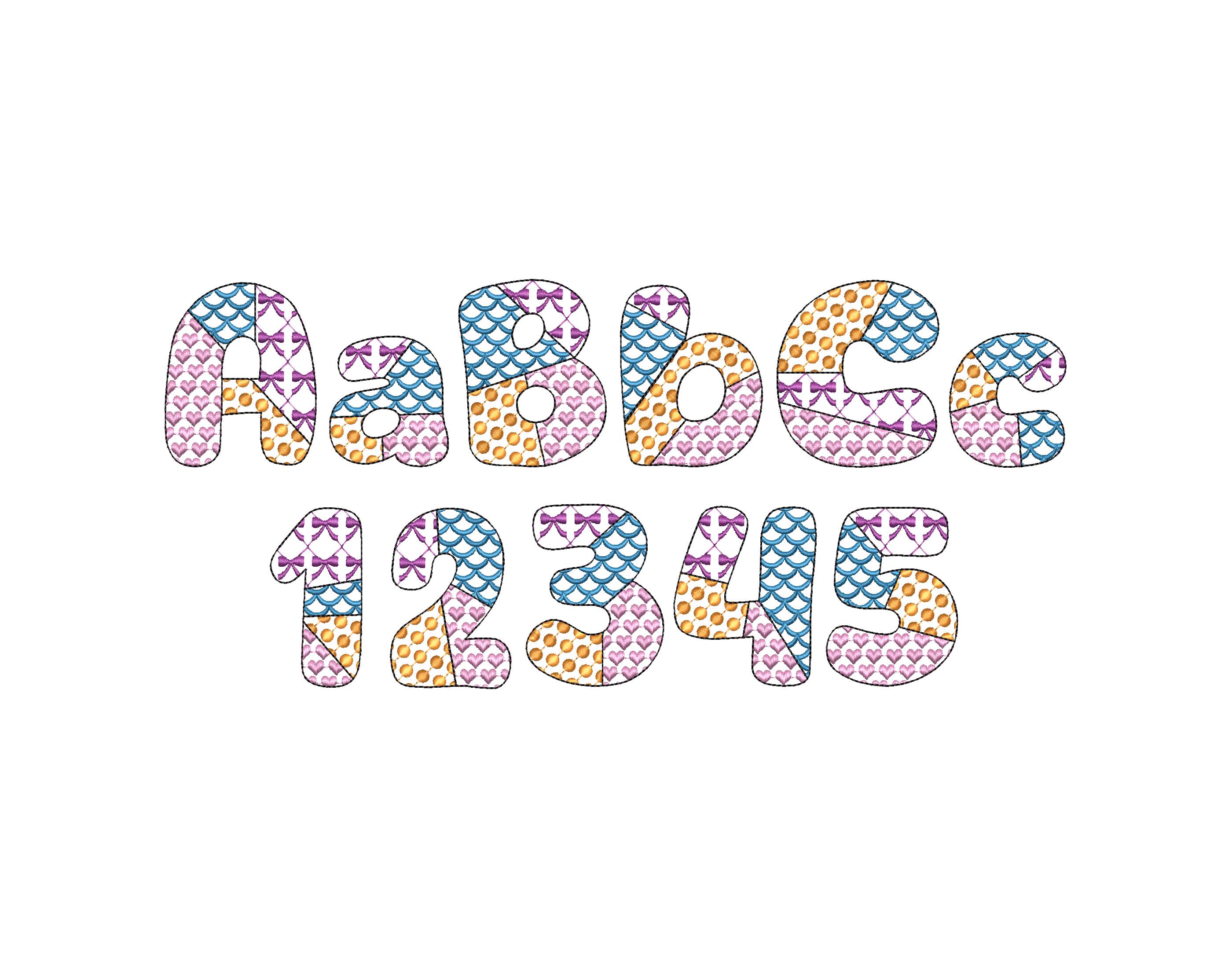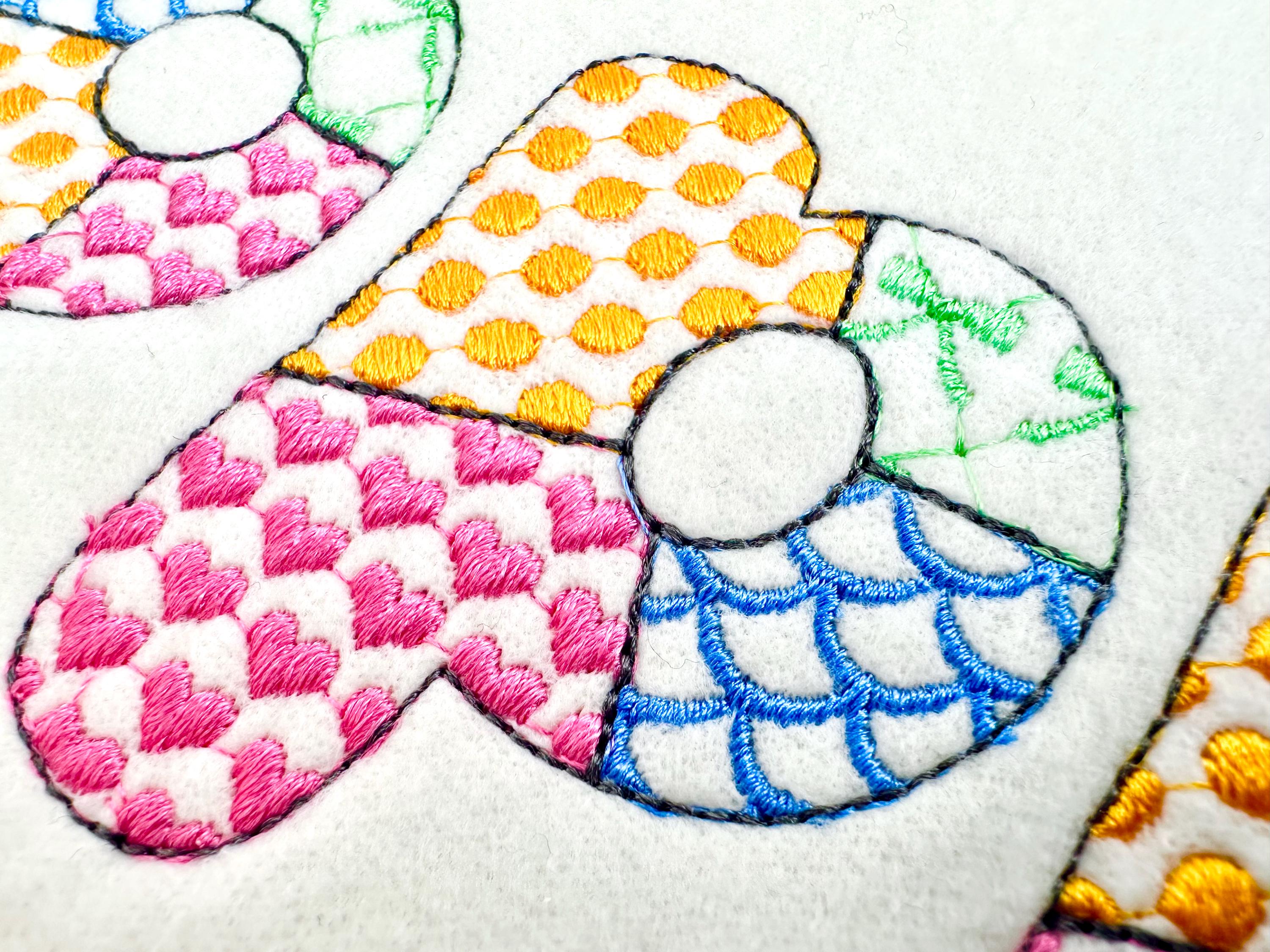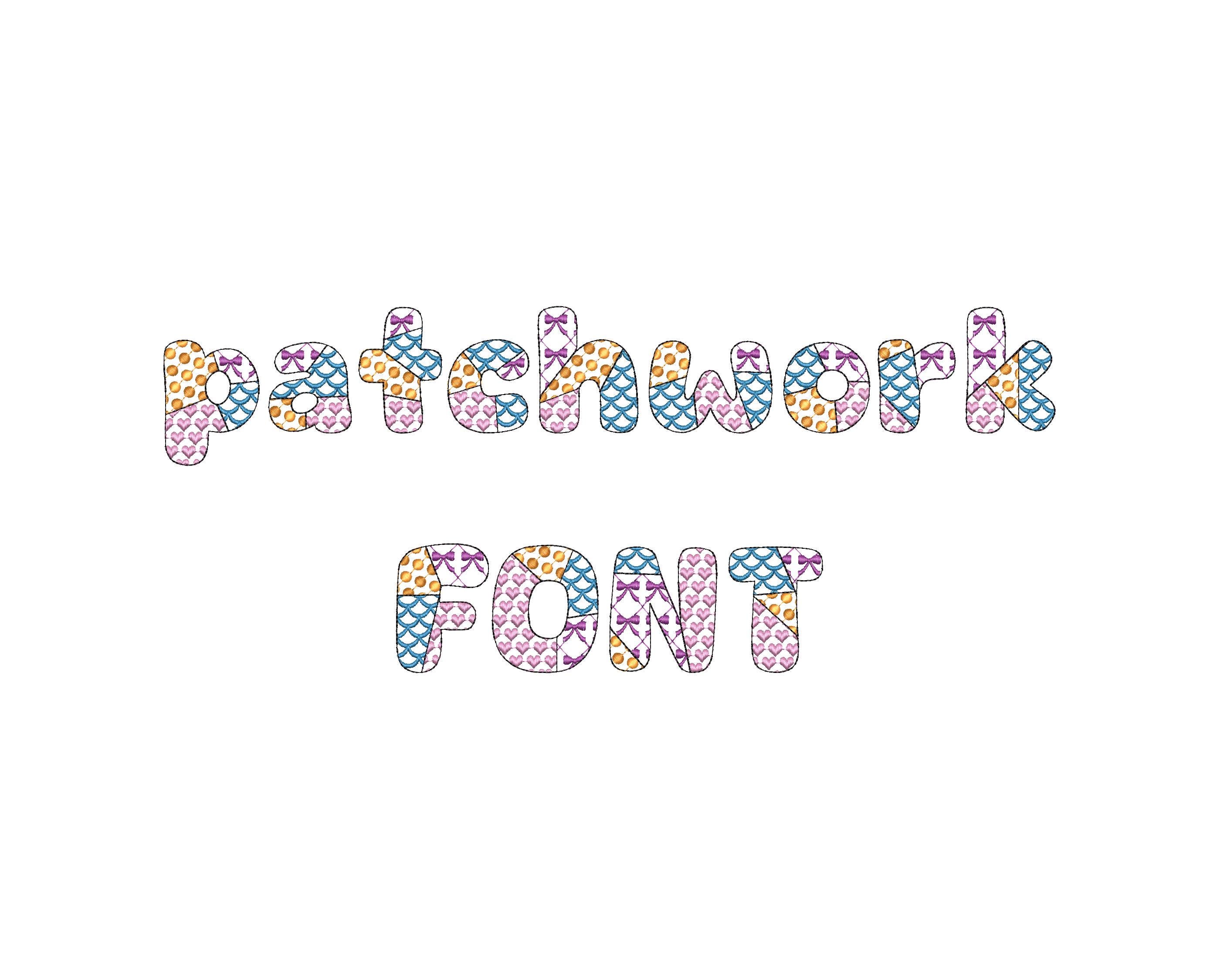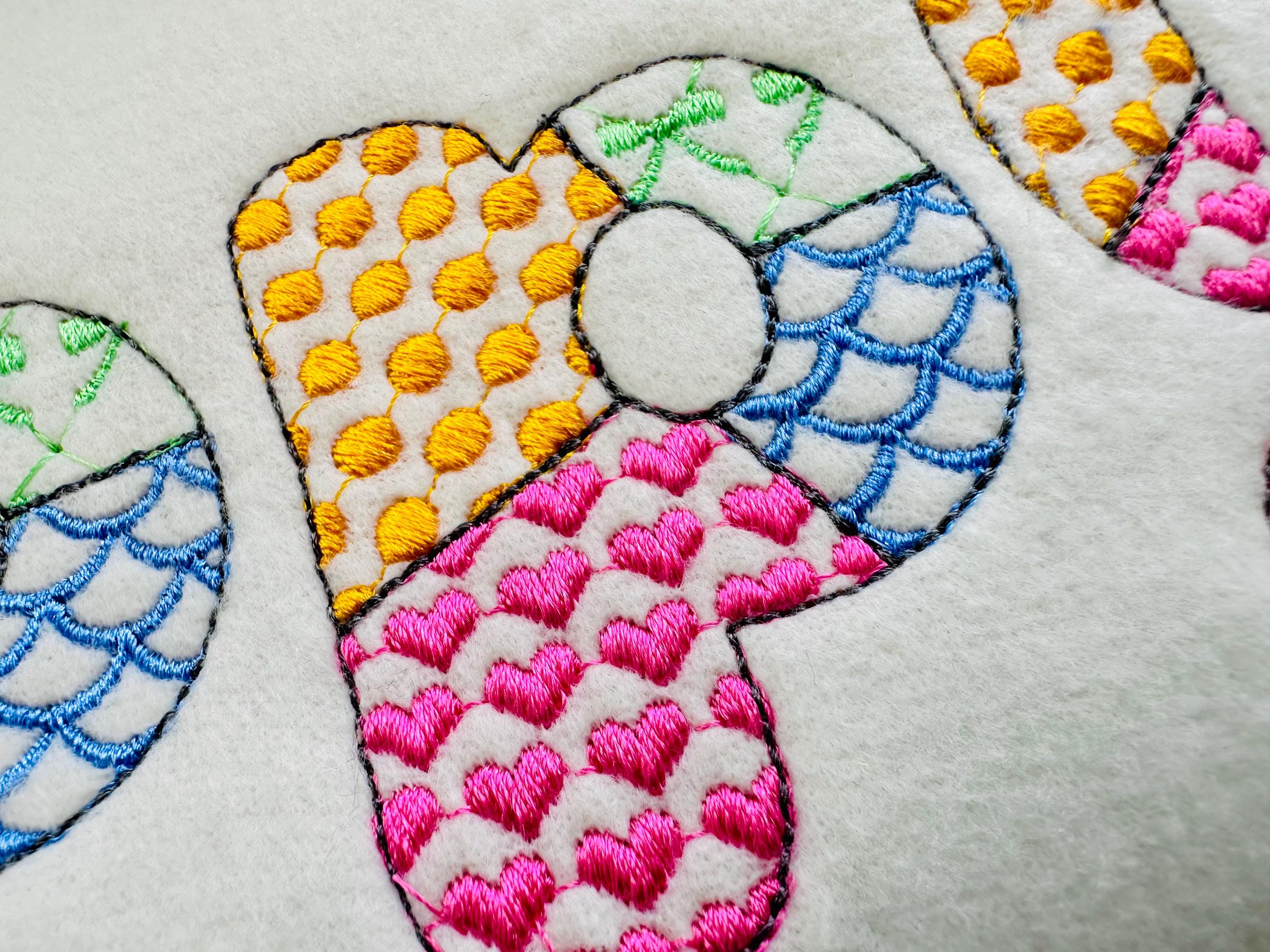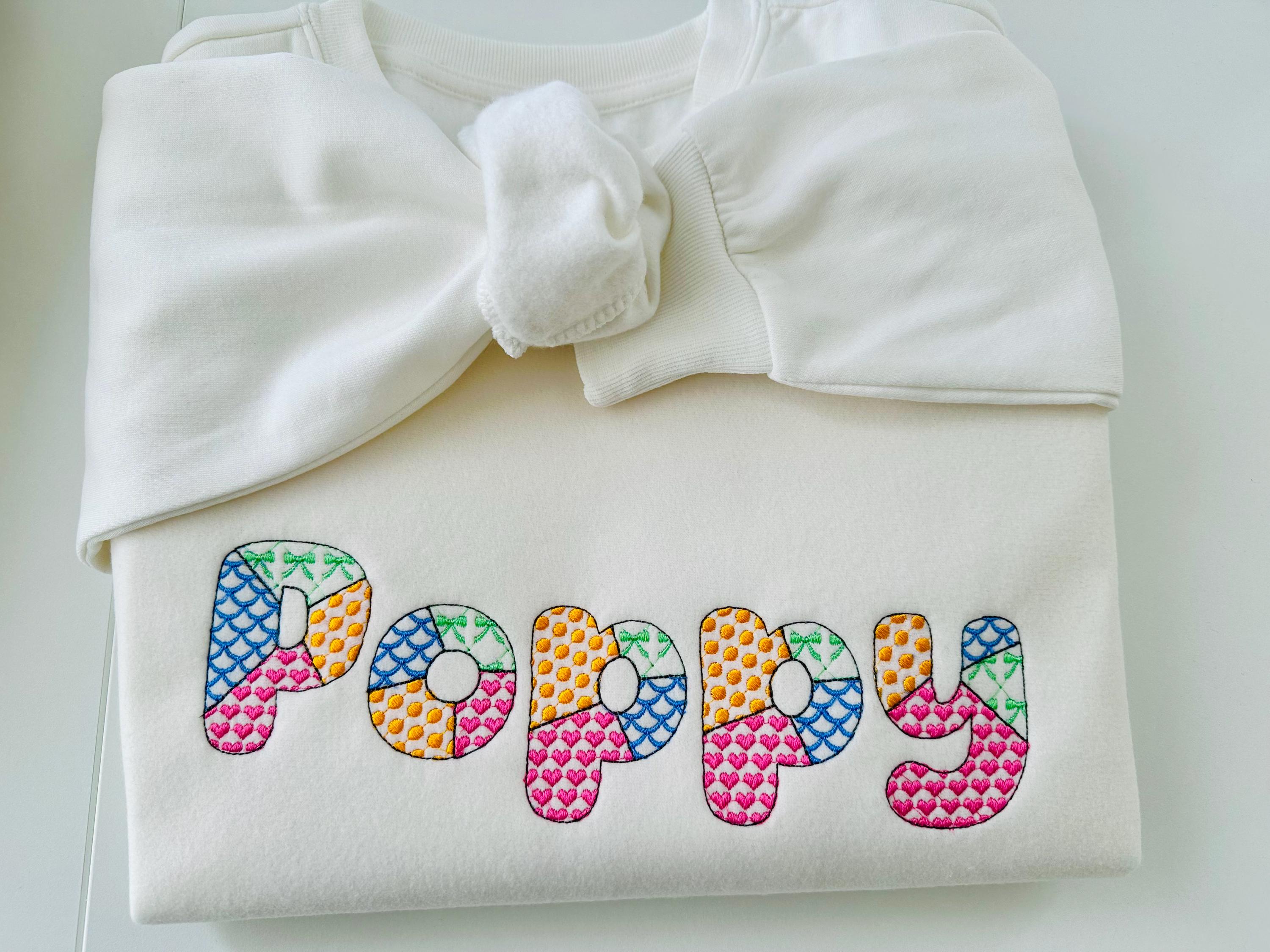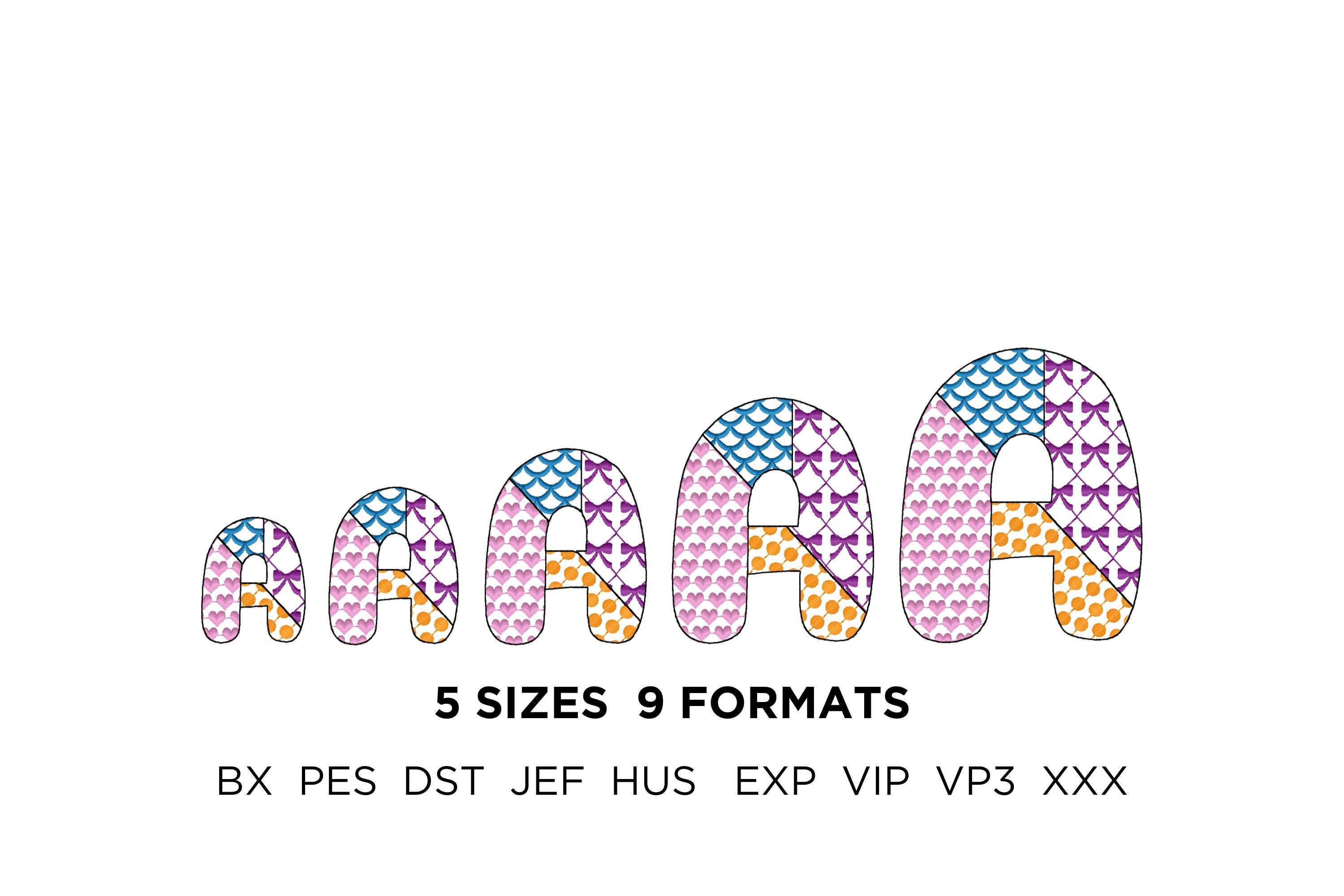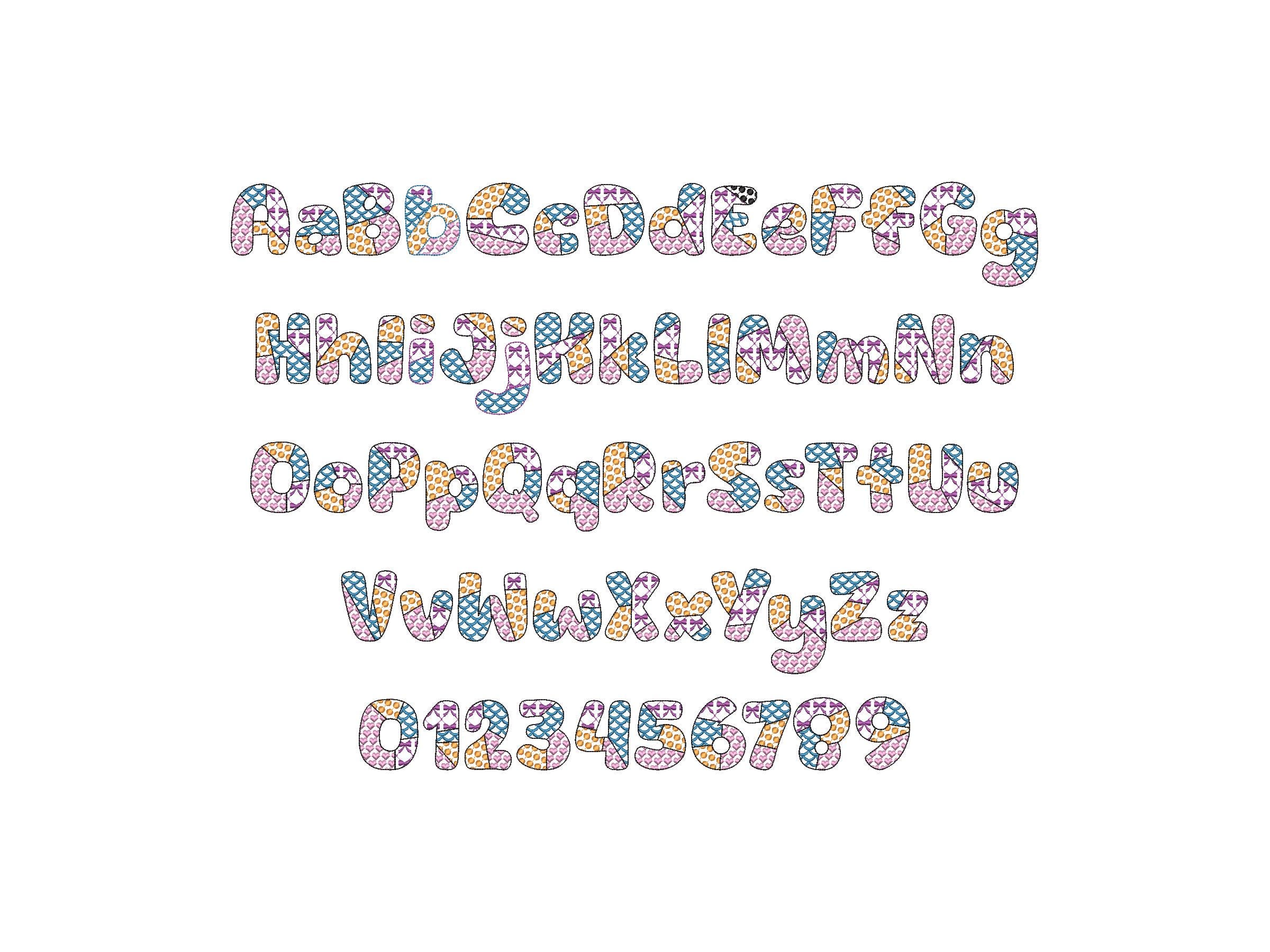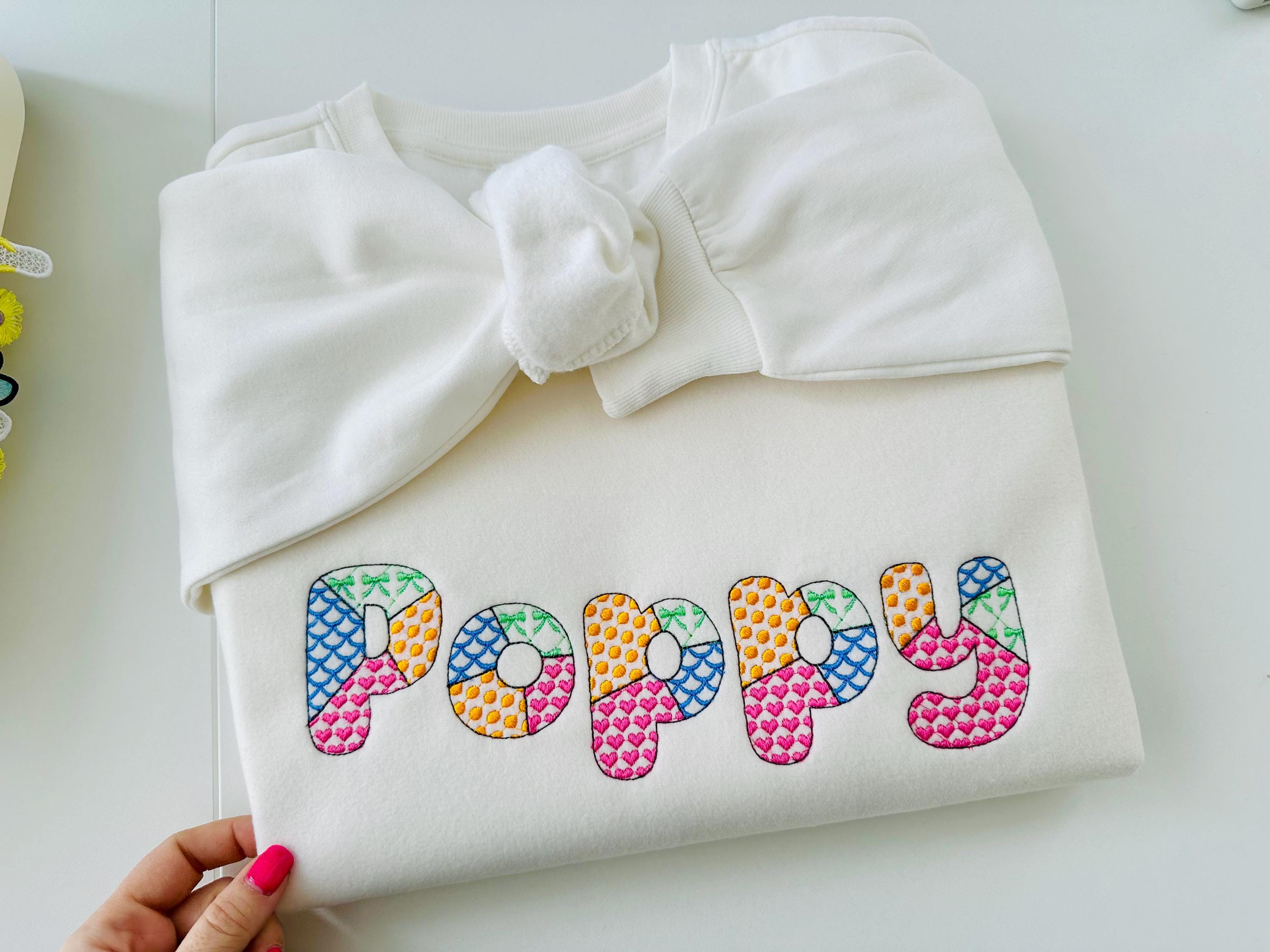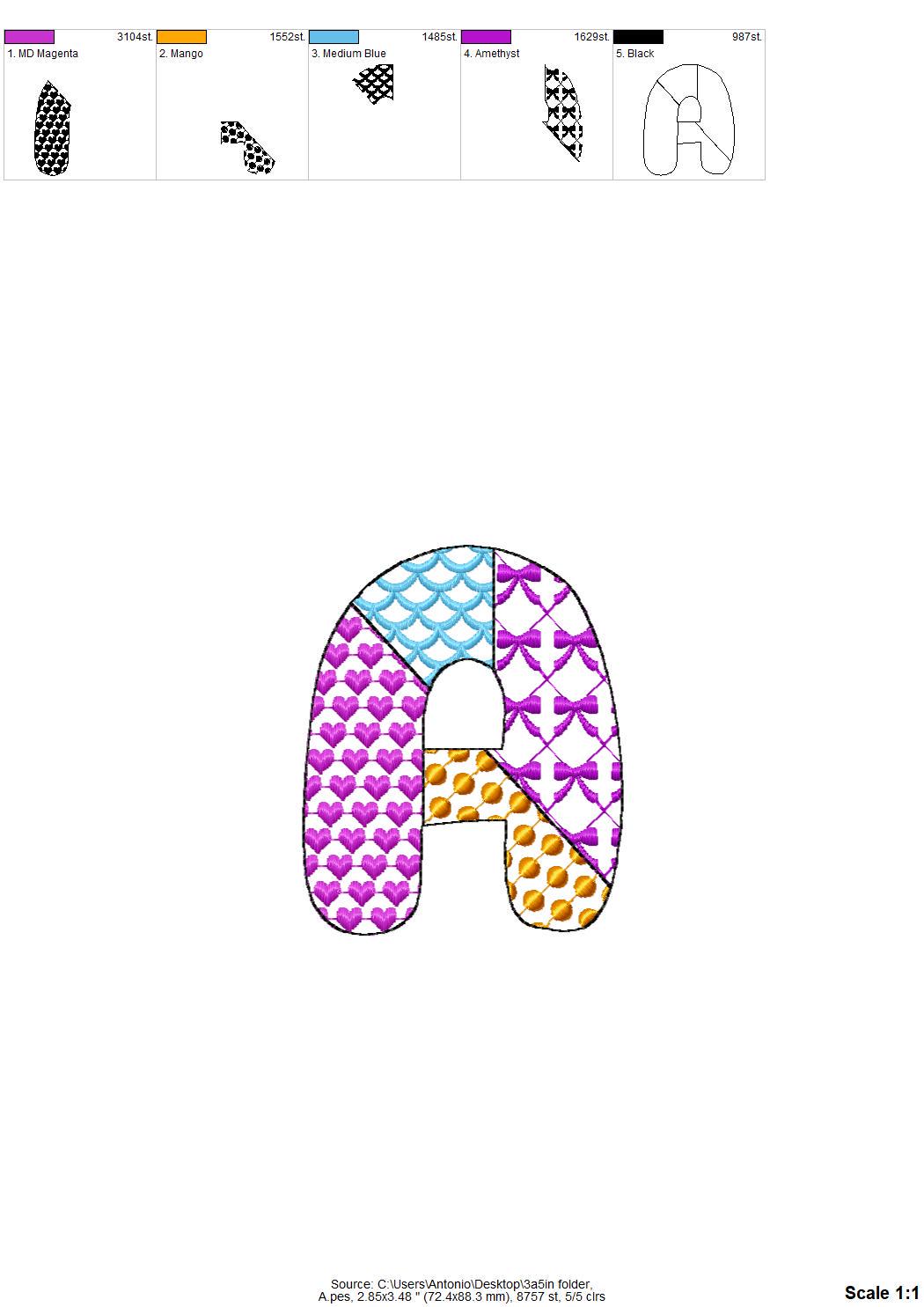
Patchwork FONT awesome patterned and outline alphabet monogram letters folk machine embroidery designs sizes 1.8 up to 4.2 inch sweet farm
Whole alphabet Aa-Zz uppercase and lowercase letters, and numbers 0-9.
Patterns are part of the embroidery. The font is transparent, and the fabric looks through. Stunning effect!